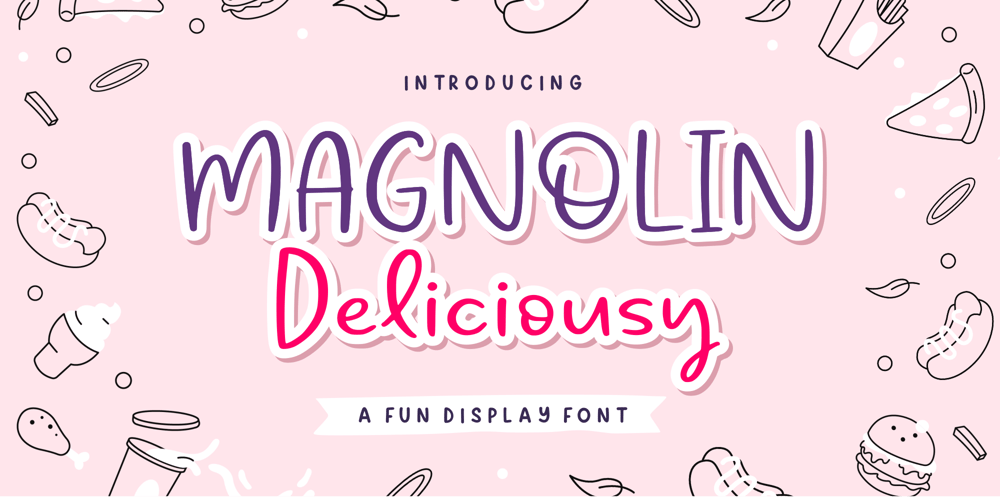
Magnolin Deliciousy
Magnolin Deliciousy font
Magnolin Deliciousy Font Family was designed by Fachrizal Yusuf and published by Allouse Studio. Magnolin Deliciousy contains 1 styles and family package options. Proudly Presenting, Magnolin Deliciousy A Fun Display Font.Magnolin Deliciousy is perfect for any titles, logo, product packaging, branding project, megazine, social media, wedding, or just used to express words above the background.Magnolin Deliciousy also come with Multi-Lingual Support.Enjoy the font, feel free to comment or feedback, send me PM or email. Thank You!